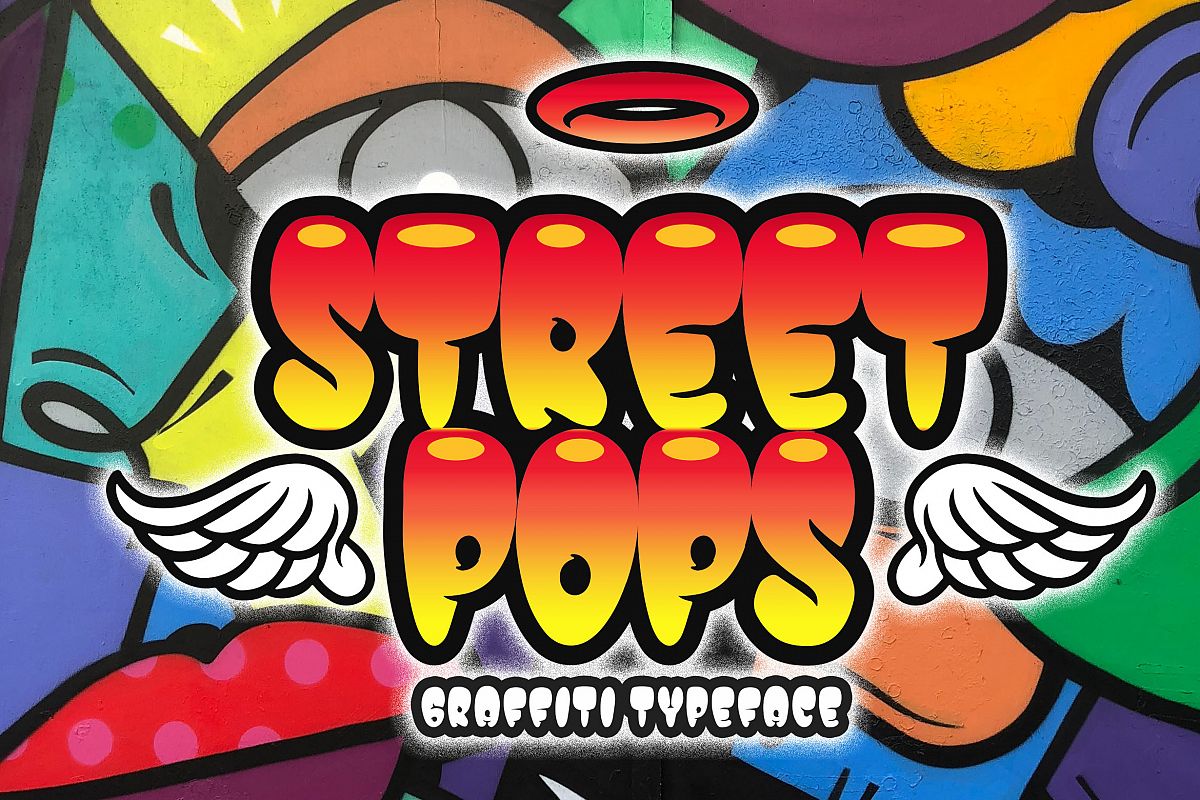
Introducing of our new product the name is Street Pops Graffiti Typeface. Street Pops inspired by graffiti style with a fun theme very good for graffity poster, Hip Hop music, kids poster, flyer, childrenbook, cartoon, comic etc